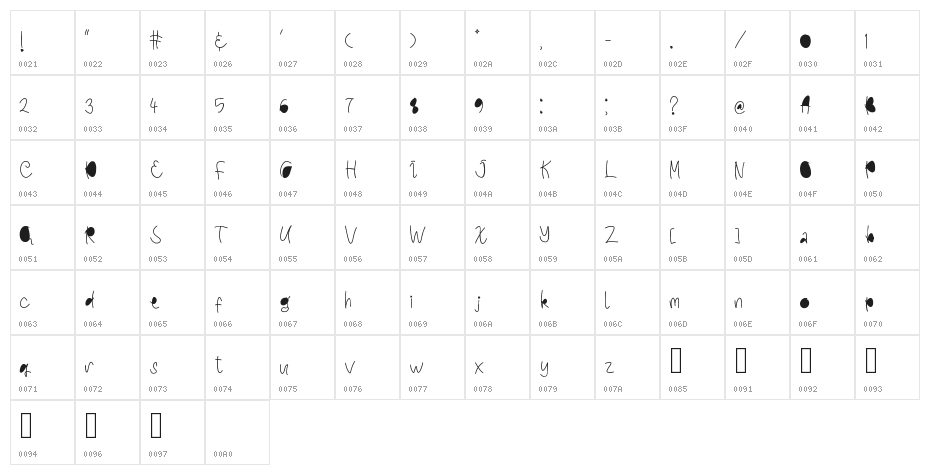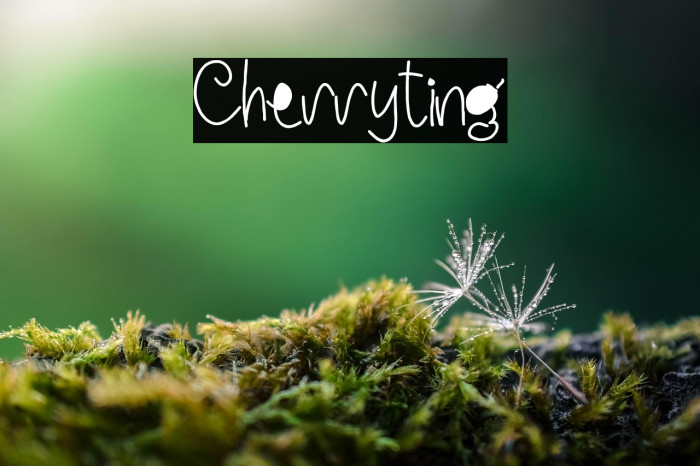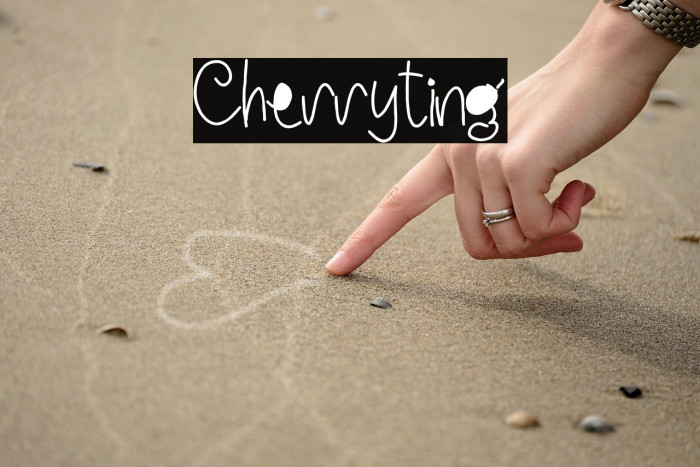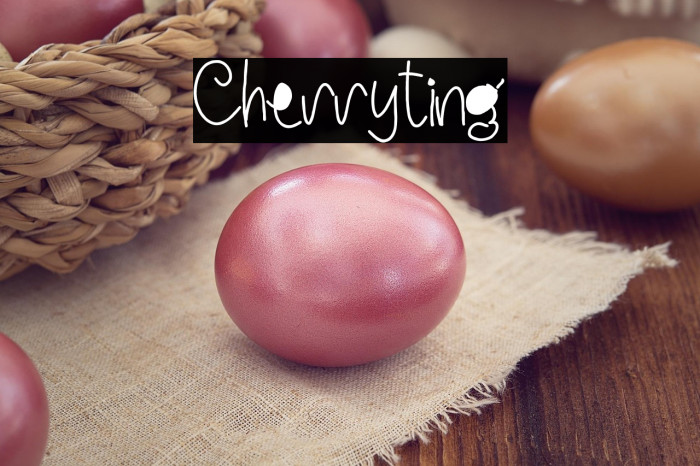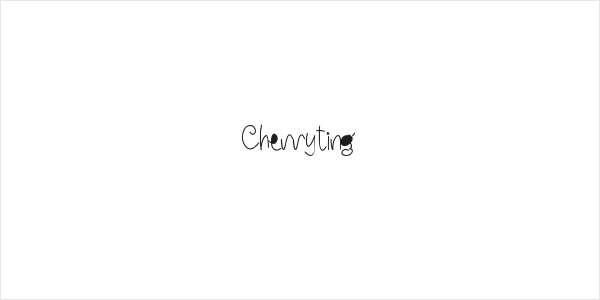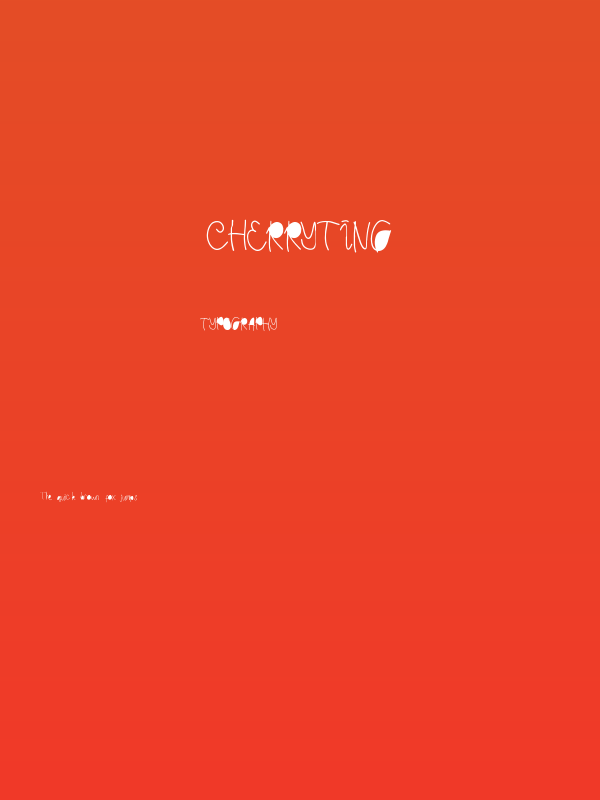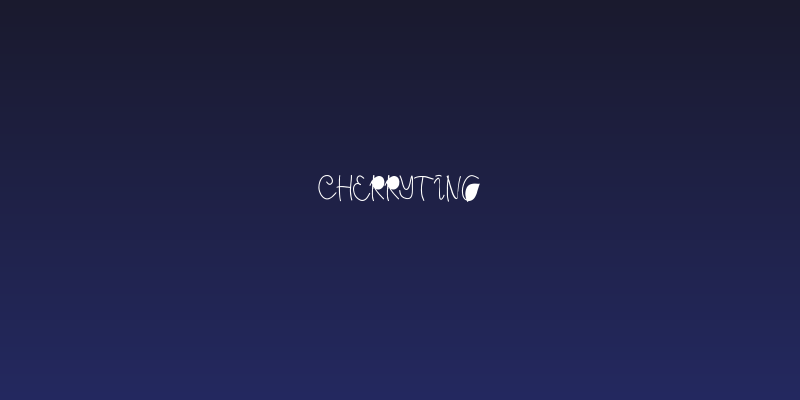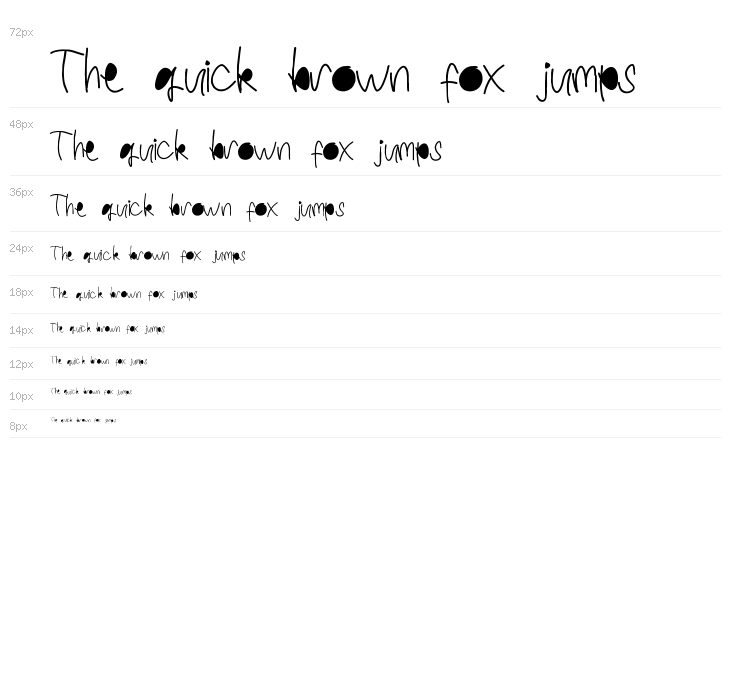
Cherryting Font
Cherryting Description
This font features a playful and whimsical design, characterized by its unique blend of thick and thin strokes. The letters have a hand-drawn quality, with irregular shapes and varying line thicknesses that give it a lively and dynamic appearance. The uppercase letters are bold and prominent, while the lowercase letters maintain a consistent style with a slightly more delicate touch. The numbers and special characters follow the same playful aesthetic, making the font versatile for creative projects. Its distinctive style is perfect for adding a touch of personality and charm to any design.